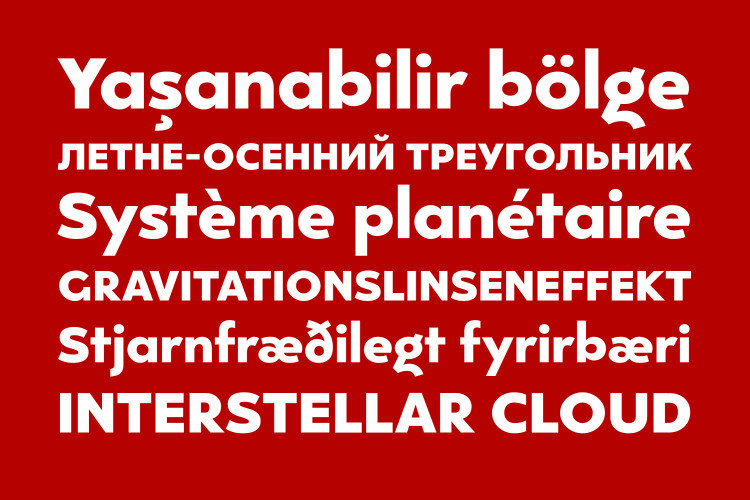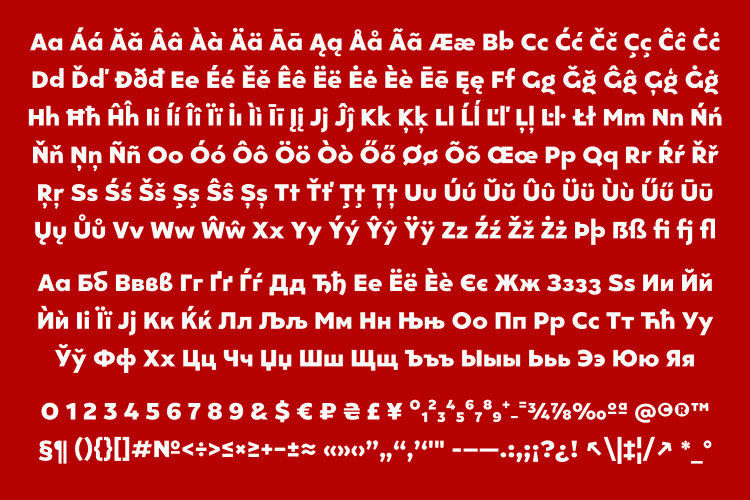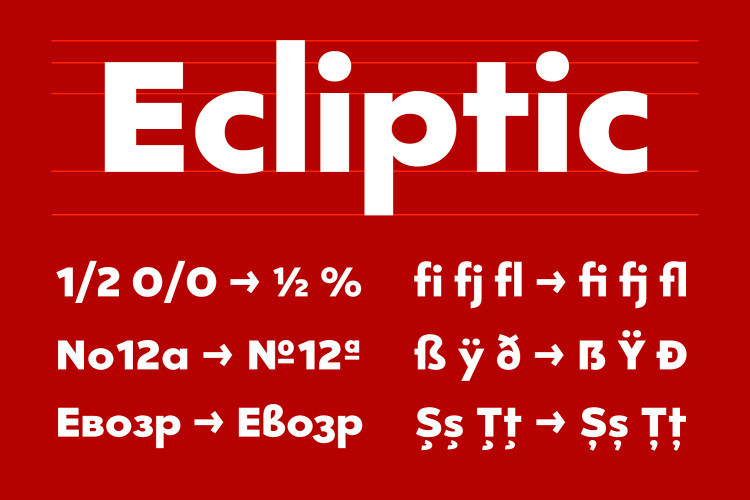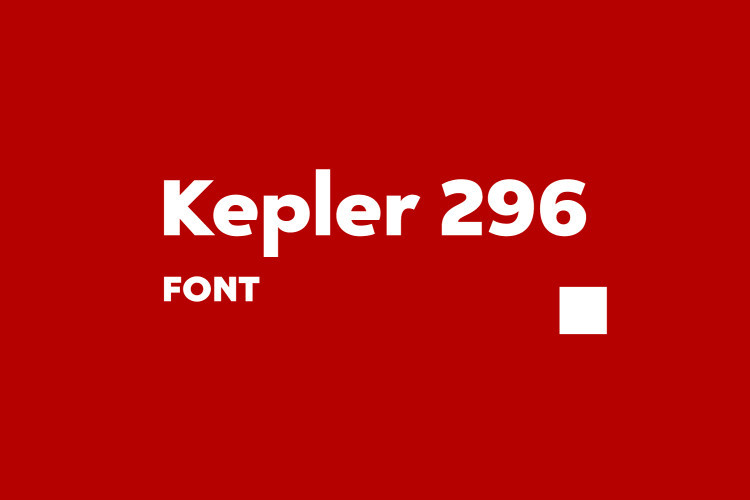
Kepler 296 Sans Font
Kepler 296 Font is a classic, condensed sans-serif font. Try it for yourself and see how eye-catching your new stand-out designs will be! Kepler 296 an created by Igor Kosinsky. It’s an experimental massive grotesque. Supports extended Latin and Cyrillic. Perfect for everything from creating bold typographic posters to eye-catching social media content, logos, print projects, and more, it is extremely versatile and will definitely be a great addition to whatever project comes your way.